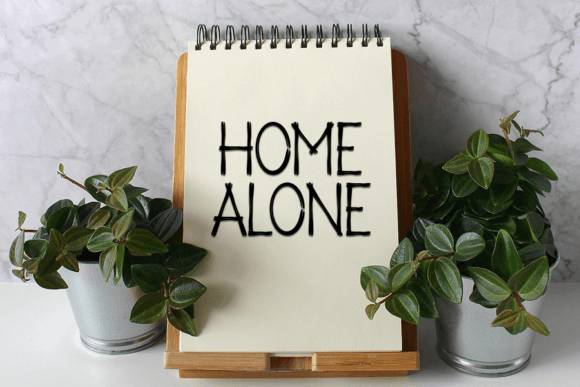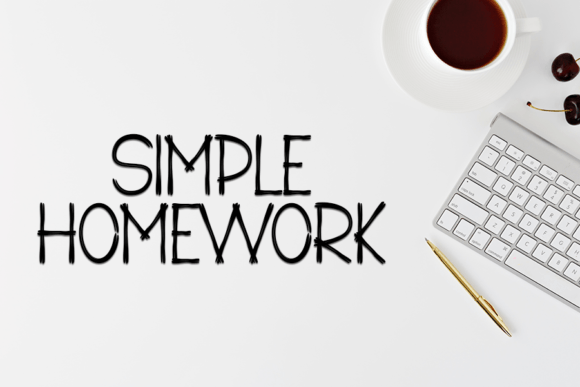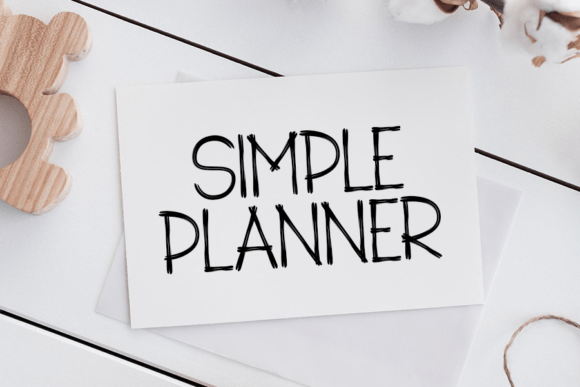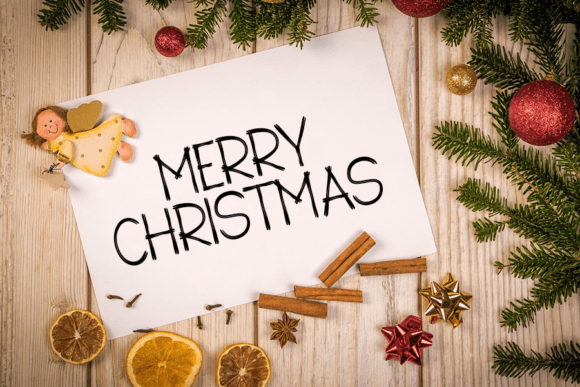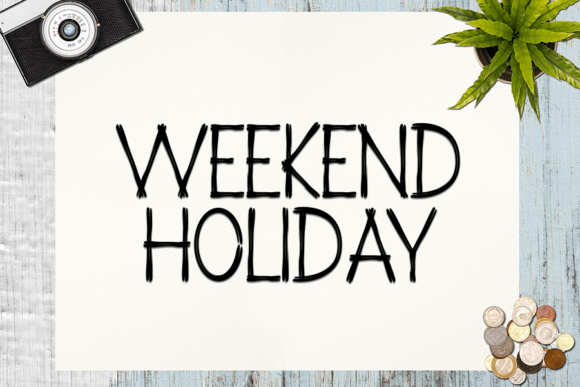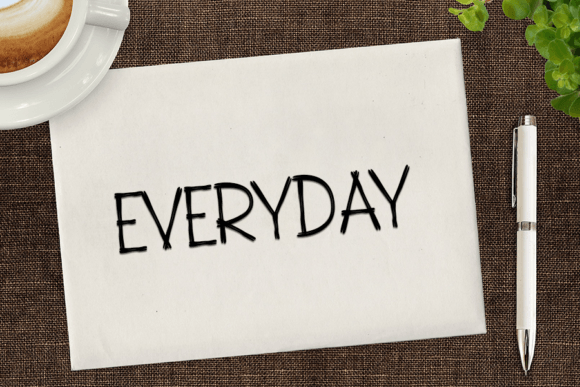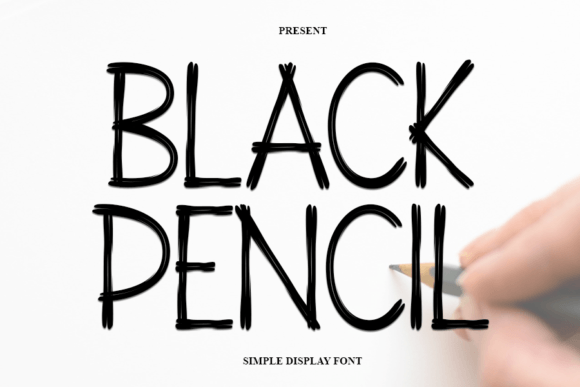
Introducing Black Pencil Font: Elevate Your Designs with Modern Elegance
Are you on the hunt for a font that exudes modern sophistication and timeless charm? Look no further than Black Pencil Font, a stunning display font that is sure to take your designs to the next level. Inspired by the classic techniques of calligraphy, Black Pencil Font boasts a balanced and varied style that is neither too thin nor too thick, making it the perfect choice for designers and crafters looking to add a touch of elegance to their projects.
The Inspiration Behind Black Pencil Font
Black Pencil Font draws its inspiration from the traditional art of calligraphy, a style that has been perfected over centuries. The font’s creator aimed to capture the essence of classic calligraphy and infuse it with a modern twist, resulting in a font that is both contemporary and timeless. The end result is a font that is not only visually stunning but also highly versatile, making it suitable for a wide range of design applications.
Key Features of Black Pencil Font
So, what sets Black Pencil Font apart from other fonts? Here are some of its key features:
- Modern Vibe: Black Pencil Font has a distinctly modern feel to it, making it perfect for designers who want to create fresh and contemporary designs.
- Spotless Form: The font’s clean and spotless form ensures that it looks great in any design, whether you’re creating a logo, a poster, or a social media graphic.
- Balanced and Varied: Black Pencil Font is carefully crafted to be neither too thin nor too thick, giving it a balanced and varied look that is both elegant and sophisticated.
Use Cases for Black Pencil Font
Black Pencil Font is an incredibly versatile font that can be used in a wide range of design applications, including:
- Logos and Branding: The font’s modern and elegant style makes it perfect for creating logos and branding materials that exude sophistication and style.
- Posters and Flyers: Black Pencil Font is ideal for creating eye-catching posters and flyers that grab attention and leave a lasting impression.
- Social Media Graphics: The font’s clean and modern style makes it perfect for creating social media graphics that stand out in a crowded feed.
- Wedding and Event Stationery: Black Pencil Font is also a great choice for creating beautiful wedding and event stationery, such as invitations, menus, and programs.
Tips for Using Black Pencil Font
Here are some tips for getting the most out of Black Pencil Font:
- Experiment with Different Sizes: Black Pencil Font looks great in a variety of sizes, so don’t be afraid to experiment to find the perfect size for your design.
- Pair it with Other Fonts: The font pairs well with other fonts, so try combining it with a sans-serif font for a modern and elegant look.
- Use it for Headlines: Black Pencil Font is perfect for headlines and titles, so use it to add a touch of elegance and sophistication to your designs.
In conclusion, Black Pencil Font is a stunning display font that is sure to elevate your designs to the next level. With its modern vibe, spotless form, and balanced and varied style, it’s the perfect choice for designers and crafters looking to add a touch of elegance and sophistication to their projects. Whether you’re creating logos, posters, social media graphics, or wedding stationery, Black Pencil Font is a versatile and beautiful font that is sure to impress.